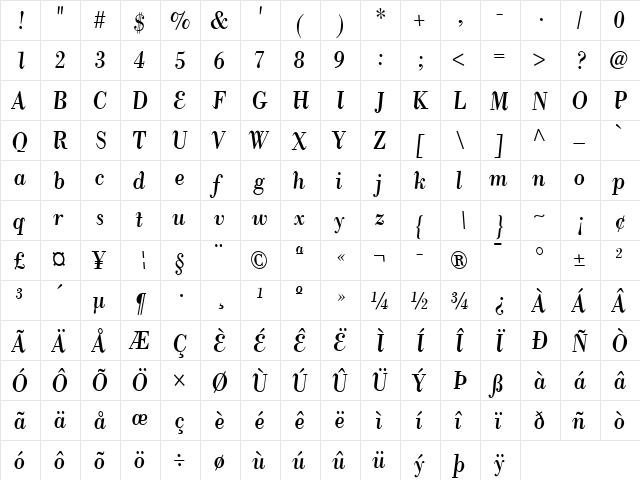
Sandbox Medium
Design Context for Sandbox Typeface
Sandbox offers clean, dependable letterforms without strong stylistic allegiance, making it a practical choice for designers who need flexibility.
Pro Tip: Use Sandbox in both headline and body roles to test its range before committing to a single application.